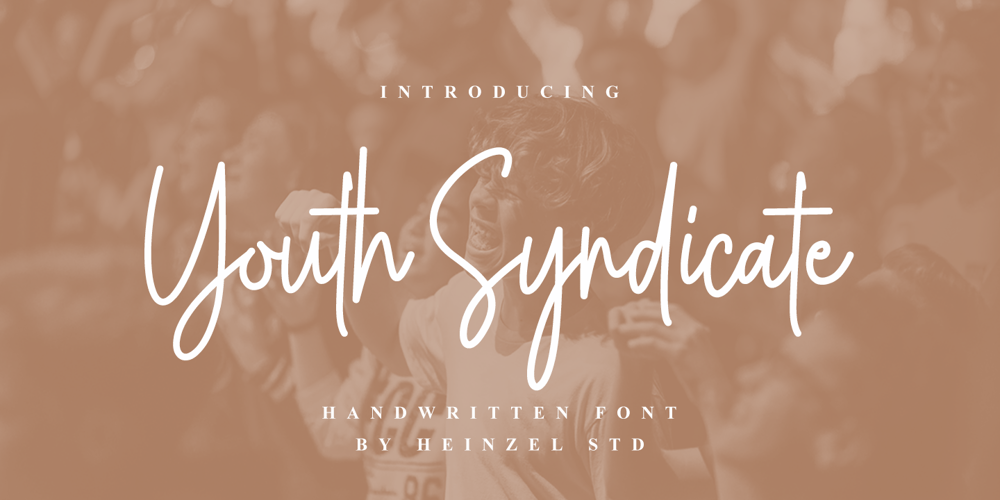
Youth Syndicate
Youth Syndicate font
Youth Syndicate Font Family was designed by Nofi Sofyan Hadi and published by Heinzel Std. Youth Syndicate contains 2 styles and family package options. Youth Syndicate is a flowing handwritten font, described by an elegant touch, perfect for your favorite projects. Fall in love with its incredibly distinct and timeless style and use it to create spectacular designs!Youth Syndicate would perfect for photography, watermark, social media posts, advertisements, logos & branding, invitation, product designs, label, stationery, wedding designs, product packaging, special events or anything that need handwriting taste.